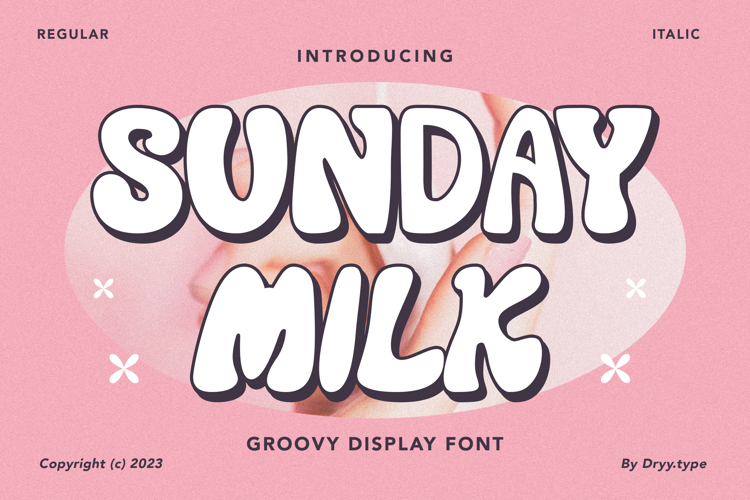
Sunday Milk Font
About Sunday Milk Font
More info from Dryy.type
A display typeface that has groovy and handwritten characters to work with.
Sunday Milk font, a unique and groovy display font. This font I created has been very much used this year & is very versatile, it goes well with a variety of designs, elevating it to the highest level. Add this font to your favorite creative ideas and see the results!
features: uppercase, lowercase, alternative, binders & multilingual